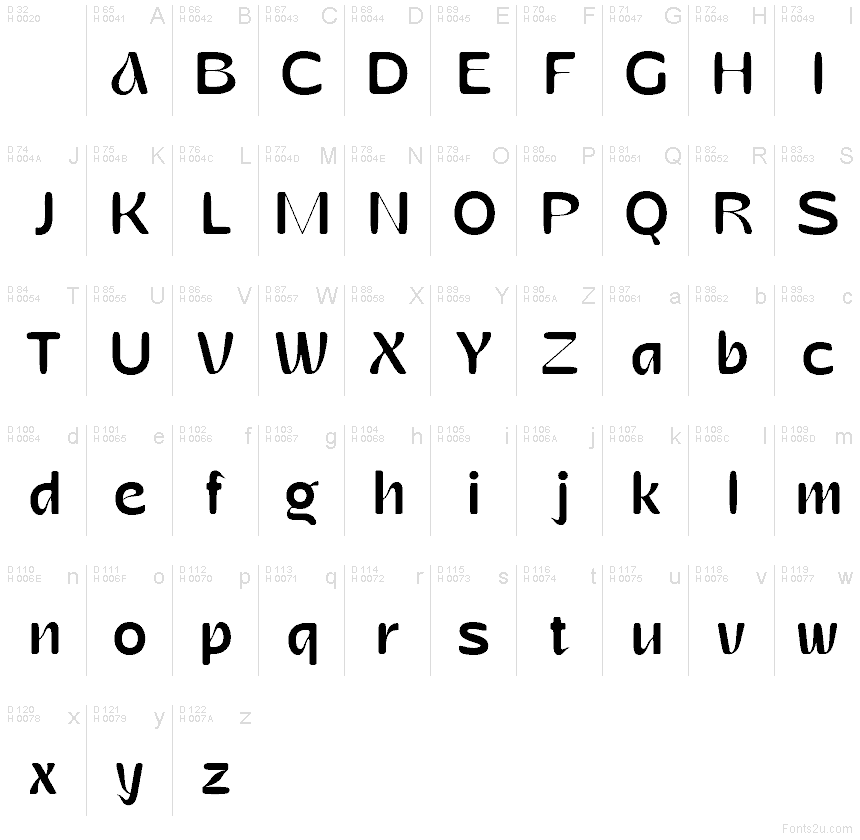
CS Carline Drawn font by Craft Supply Co. is a retro, expanded, display typeface with a clean and friendly style. Its modern and approachable appearance serves as a great addition to designs where making an impact is the objective. The legible letters are neatly structured which makes them useful when presented in small sizes on digital platforms.
This free display font can be used in poster designs, advertising newspapers or magazines, video covers, postcards, booklets, catalogues, website headers & subheaders. It is suitable for branding magazines and books along with phone apps where short texts are to be presented to users. Use it anywhere casualness along elegance needs to be broadcasted at the same time!